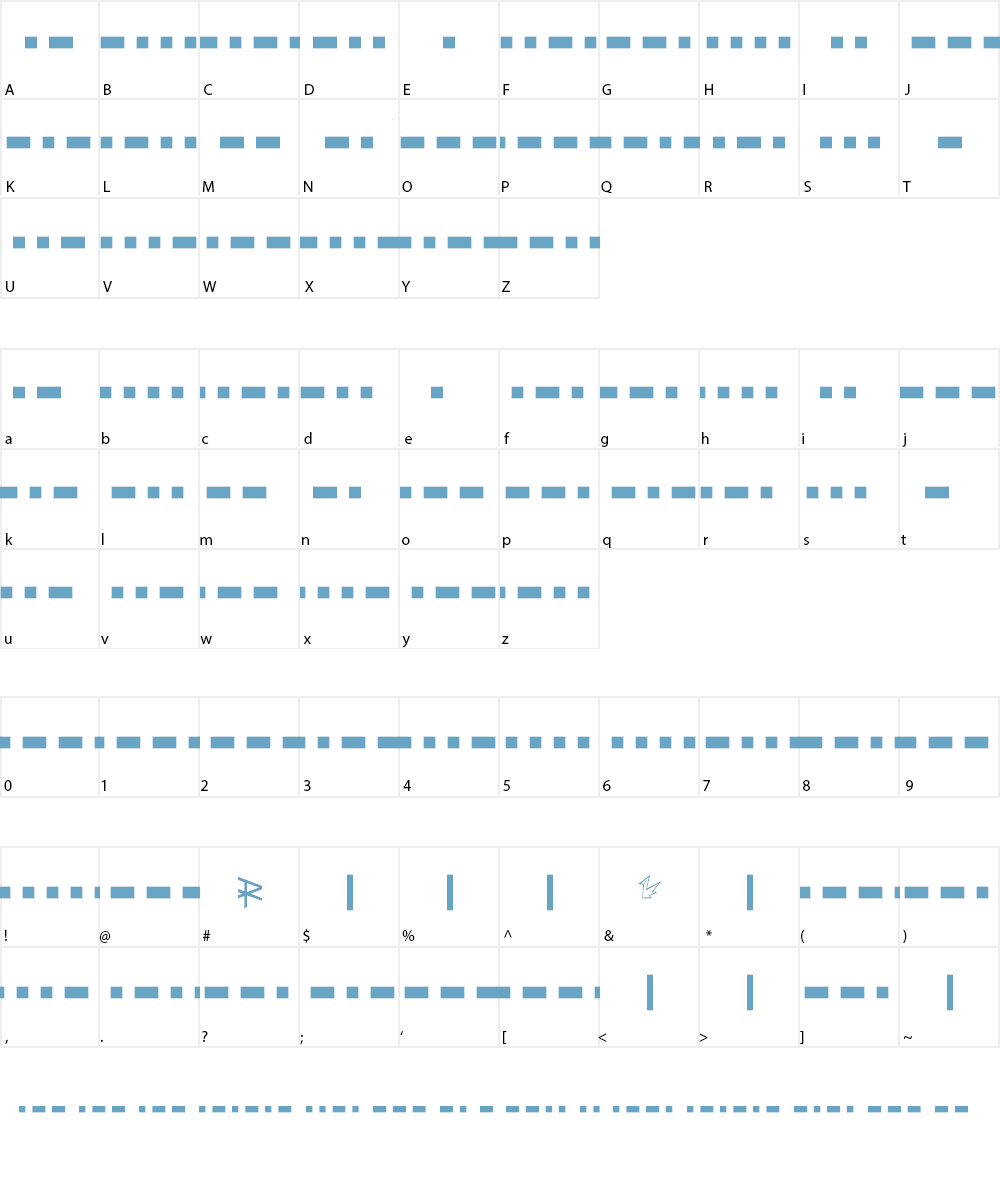
BukanMorse is a typeface based on International Morse Code.
Upper-case letter without space on the right.
AA .-.- AaB .-.- -...
Lower-case letter with space on the right.
aa .- .- aAB .- .--...